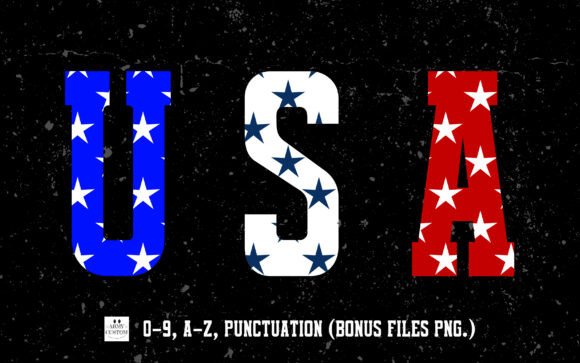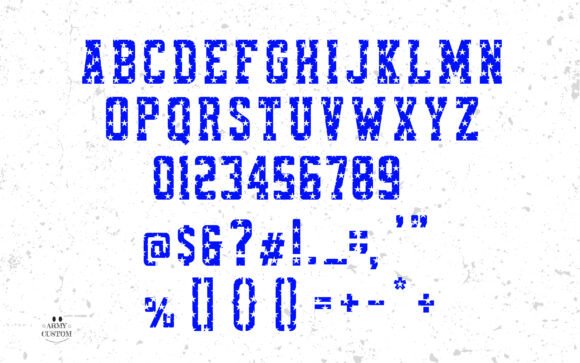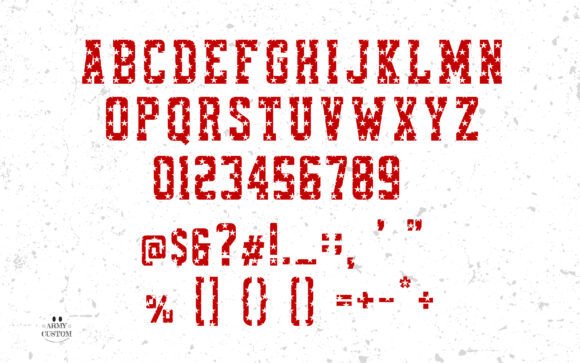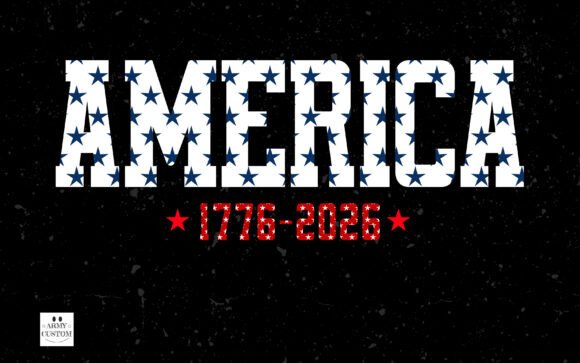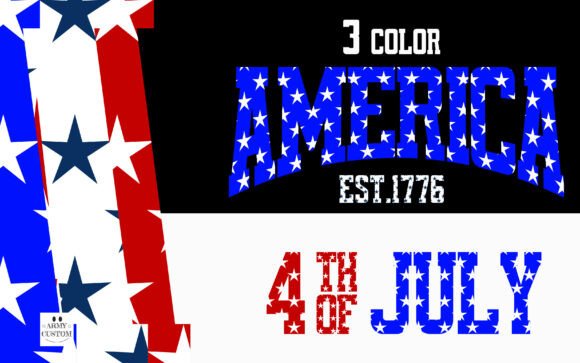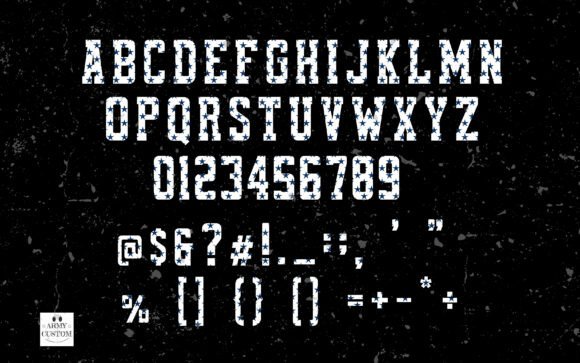
Unveiling the Enchanting Magnetism of Fourth Star Font
In the vast universe of typography, there exists a font that shines brightly, captivating the hearts of designers and crafters alike. Welcome to the world of Fourth Star Font, a masterpiece crafted with meticulously designed characters and a unique charm that sets it apart from the rest. With Fourth Star, every curve and line is calculated precision, providing your designs with a distinct personality – a testament to attentiveness and ingenuity.
The Art of Precision
Fourth Star Font is a symphony of precision and creativity, where every element is carefully crafted to create a visually stunning experience. The font’s designer has poured their heart and soul into creating a typography masterpiece that exudes elegance, sophistication, and a touch of whimsy. Each character is meticulously designed to ensure that the font is not only aesthetically pleasing but also highly legible, making it perfect for a wide range of design applications.
A Font that Speaks Volumes
Fourth Star’s charm lies not only in its stylish aesthetics but also in its ability to convey complex ideas and emotions. This font is more than just a collection of characters; it’s a tool that enables designers to communicate their message with clarity, precision, and impact. Whether you’re working on a branding project, creating a stunning visual display, or crafting a compelling narrative, Fourth Star Font is the ideal solution for those intent on leaving a lasting impression.
Transforming Visual Communication
Embracing the striking elegance and uniqueness of Fourth Star Font can transform the way you communicate visually. This font has the power to elevate your designs, adding a touch of sophistication and glamour that sets them apart from the competition. With Fourth Star, you can create stunning visual displays, craft compelling narratives, and leave a lasting impression on your audience.
Why Choose Fourth Star Font?
So, why choose Fourth Star Font over other typography options? Here are just a few compelling reasons:
- Unique Charm: Fourth Star Font has a distinct personality that sets it apart from other fonts.
- Precision Craftsmanship: Every curve and line is carefully crafted to create a visually stunning experience.
- High Legibility: The font is designed to be highly legible, making it perfect for a wide range of design applications.
- Emotional Connection: Fourth Star Font has the ability to convey complex ideas and emotions, making it perfect for designers who want to create a lasting impression.
In conclusion, Fourth Star Font is a typography masterpiece that offers a unique blend of style, elegance, and precision. With its meticulously designed characters, unique charm, and high legibility, this font is perfect for designers and crafters who want to create stunning visual displays, craft compelling narratives, and leave a lasting impression on their audience. So, why settle for ordinary typography when you can experience the enchanting magnetism of Fourth Star Font?
Get Ready to Shine with Fourth Star Font
Whether you’re a seasoned designer or a crafty enthusiast, Fourth Star Font is the perfect addition to your typography collection. So, get ready to shine with this stunning font that is sure to take your designs to the next level. With its precision craftsmanship, unique charm, and high legibility, Fourth Star Font is the perfect tool for anyone who wants to create visually stunning designs that leave a lasting impression.